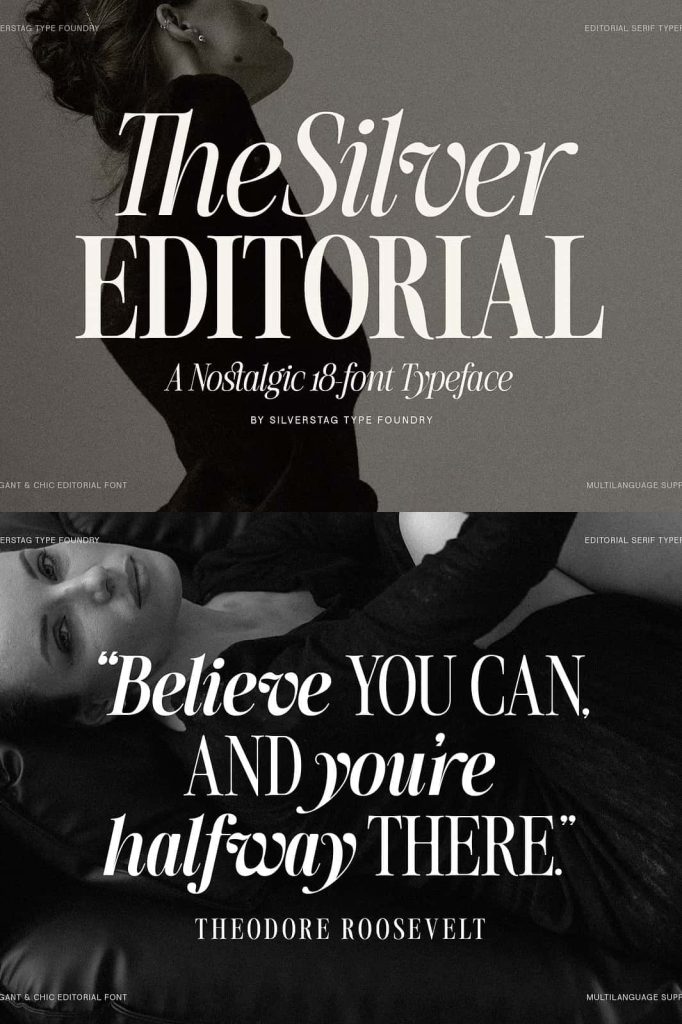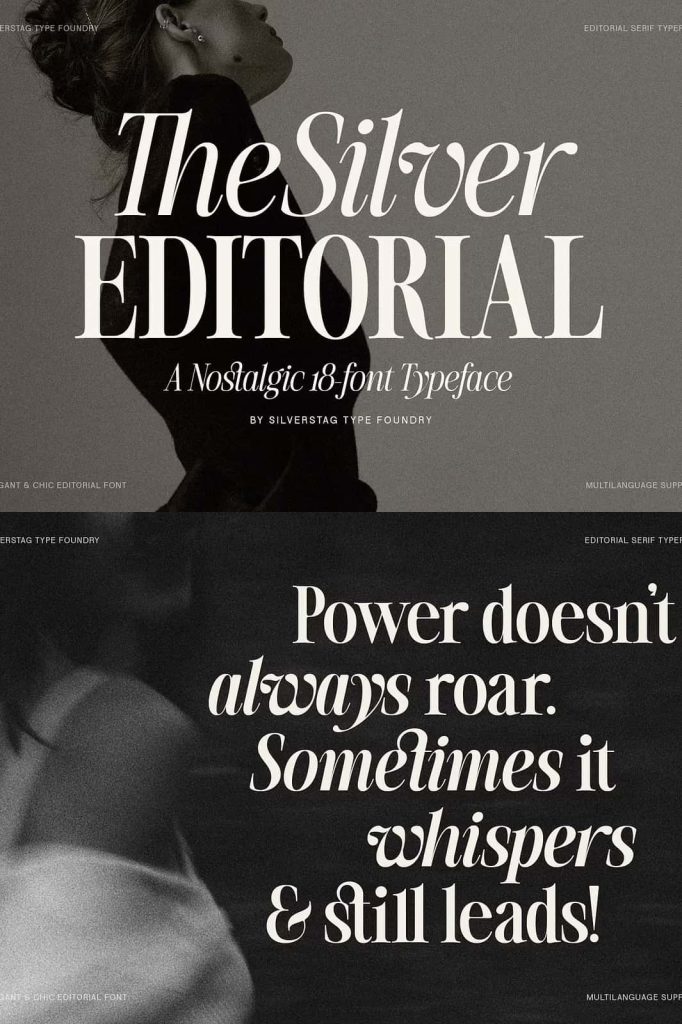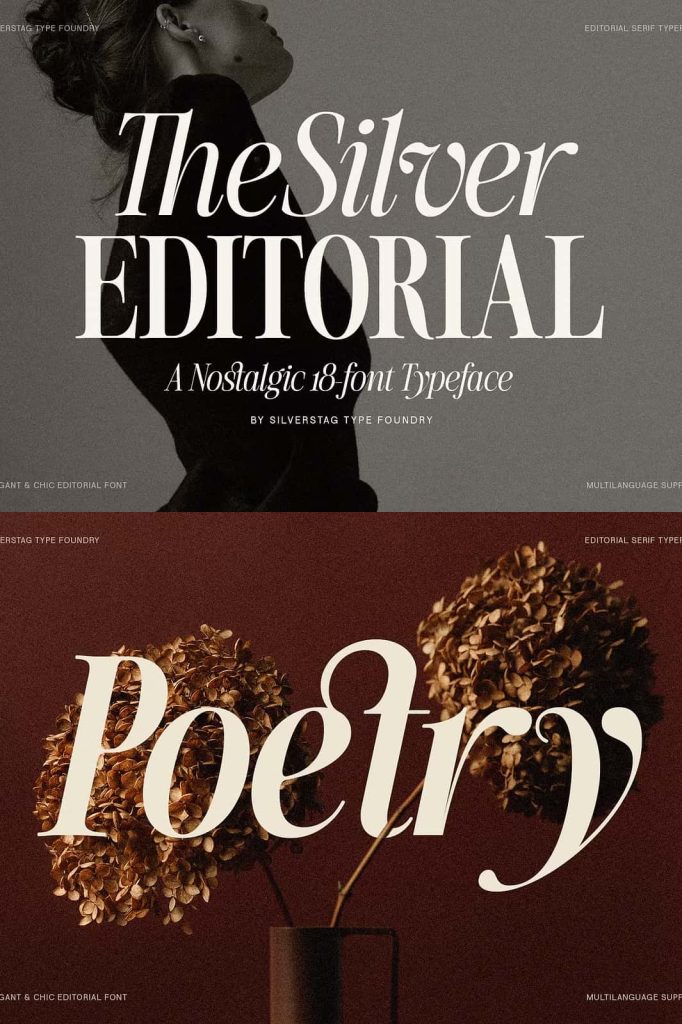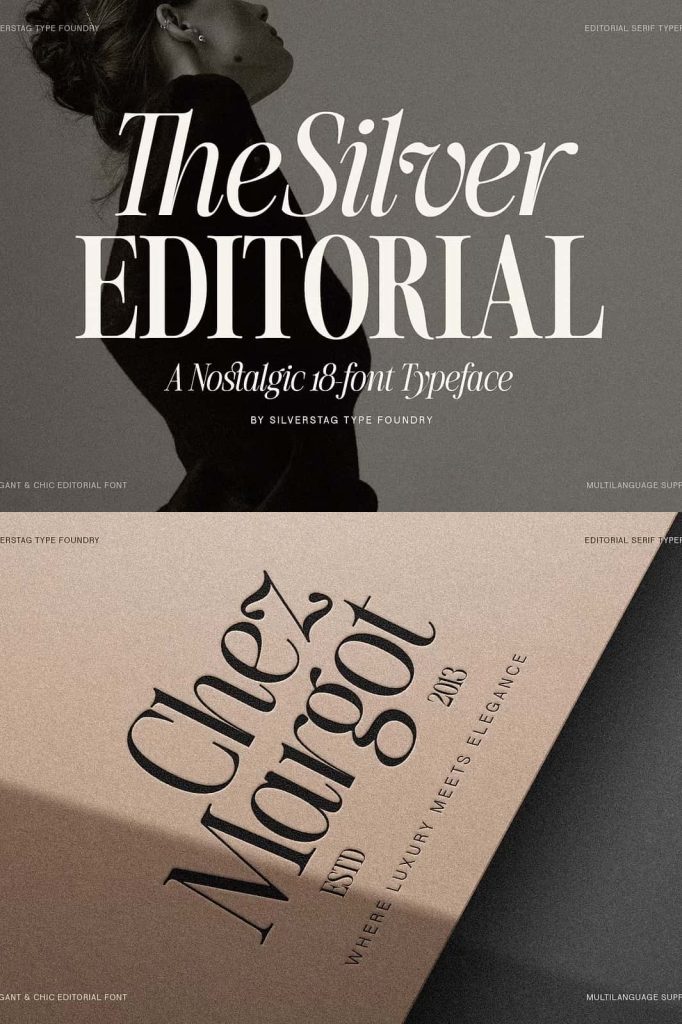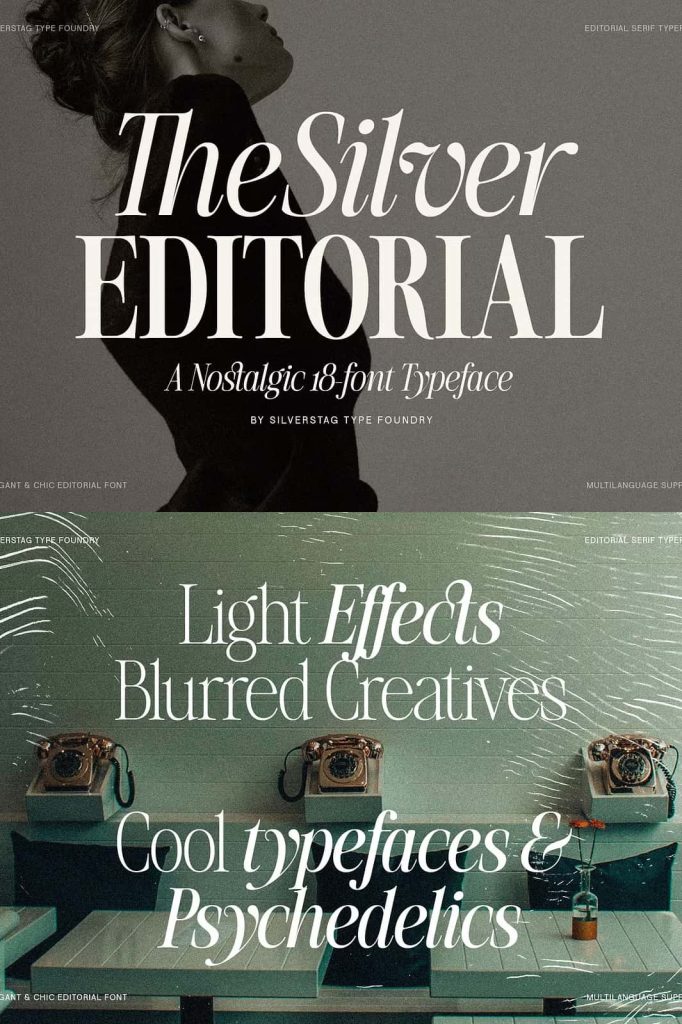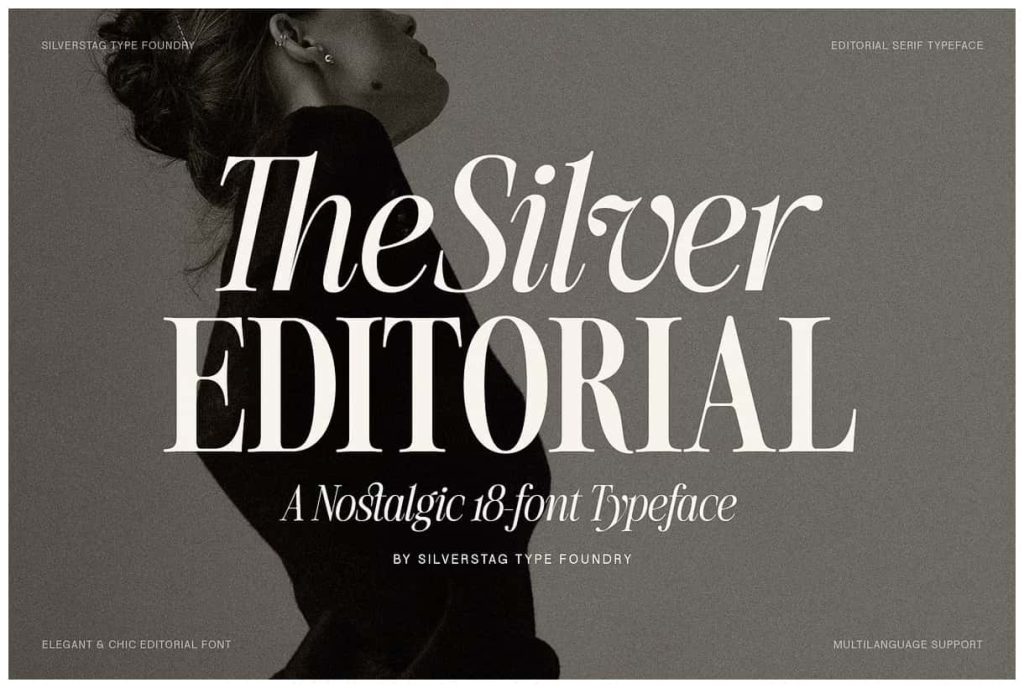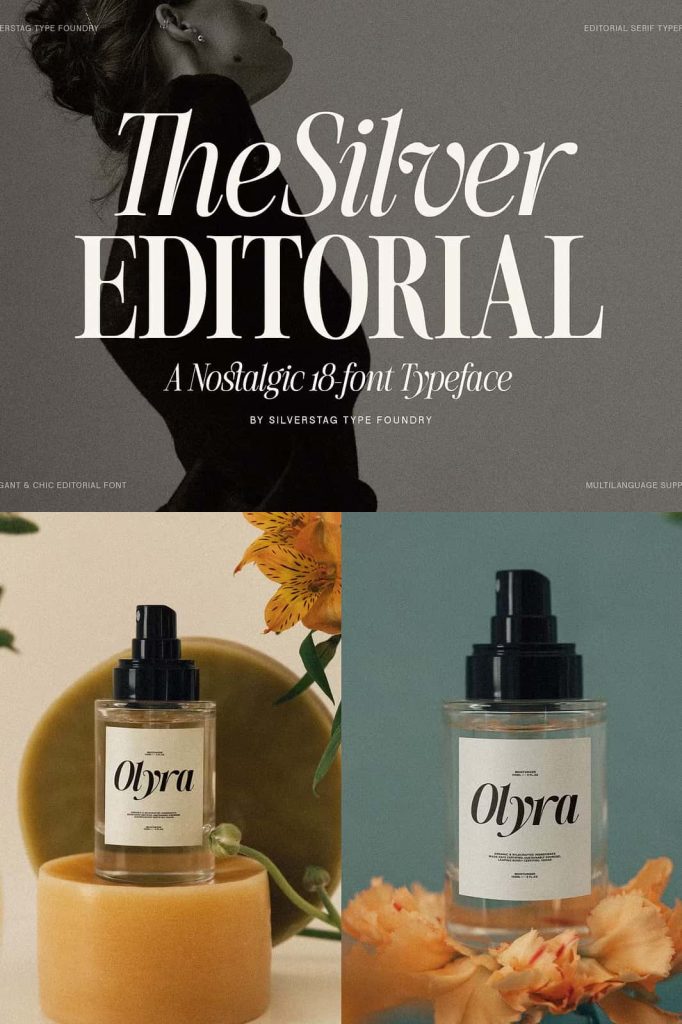
The Silver Editorial Font – A Refined and Nostalgic 18-Font Serif Typeface for Modern Designers
The Silver Editorial Font is a timeless serif typeface that blends nostalgia with precision, offering a perfect balance of beauty, versatility, and function. This expanded edition of one of the best-selling serif families introduces a comprehensive typographic system, featuring 18 fonts in total—nine unique weights, each complemented by matching italics. Every curve, stroke, and serif has been thoughtfully redrawn, giving this collection a refined elegance and superior usability across both print and digital platforms.
A Complete Typographic System for Every Creative Need
The new and improved Silver Editorial Font collection transforms classic editorial typography into a modern, high-performance design tool. With 9 weights ranging from delicate Thin to commanding Black, plus their corresponding italics, this family gives designers complete control over tone, hierarchy, and visual rhythm. Whether crafting a luxury magazine spread, an elegant brand identity, or an impactful digital interface, The Silver Editorial adapts seamlessly to every creative vision.
Each font weight has been carefully balanced to maintain consistent proportions and readability. From the lightest hairline strokes to the boldest display weight, The Silver Editorial ensures visual harmony and sophistication in every composition. The expanded italic styles add a graceful rhythm that complements editorial layouts, long-form texts, and sophisticated branding alike.
Inspired by Classic Serif Elegance
At its core, The Silver Editorial Font pays homage to the timeless serif designs of traditional print publications while introducing a modern refinement. The typeface captures the grace and character of vintage editorial lettering—sharp, sophisticated, and full of personality—yet it’s engineered for modern performance. Every letterform is crafted to deliver both visual allure and technical perfection, resulting in a type family that feels as classic as it is contemporary.
This combination of tradition and innovation gives The Silver Editorial Font its distinctive voice. It carries the warmth of heritage typography while meeting the needs of modern digital publishing, branding, and creative design. It’s not just a font—it’s a celebration of timeless editorial craftsmanship reimagined for today’s designers.
Built for Beauty, Designed for Function
The Silver Editorial Font was designed with a clear philosophy: form should serve function. The typeface’s balanced proportions, smooth curves, and consistent contrast ensure that it performs beautifully across different applications. Whether used for text, headings, logos, or advertising, it delivers clarity, impact, and visual consistency.
The versatility of this type system makes it suitable for projects of all scales—from elegant branding and luxury packaging to web design, book layouts, and editorial features. The fine-tuned kerning and optimized spacing maintain readability even in small sizes, while the stronger weights deliver striking presence in headlines and titles.
Perfect for Designers Who Demand Versatility
For creative professionals, The Silver Editorial Font provides a toolkit for precision and artistry. Its variety of weights allows for the seamless construction of typographic hierarchies, making it easy to design sophisticated layouts without needing to mix multiple font families. The italics add a touch of fluid elegance, ideal for quotes, subheadings, or expressive typography.
Each style in the family can stand on its own or blend effortlessly with others, enabling dynamic visual compositions that feel cohesive and polished. Whether you’re creating magazine editorials, branding campaigns, digital products, or social media designs, The Silver Editorial offers flexibility without compromise.
Why The Silver Editorial Font Stands Out
The Silver Editorial Font is more than an upgrade—it’s a reimagining of classic typography. Every detail has been redrawn with precision, improving the legibility, balance, and flow of the original design. The result is a typographic system that’s ready to meet professional standards in today’s fast-paced creative world.
Key Features of The Silver Editorial Font:
- Comprehensive Font Family: Includes 18 fonts – 9 weights plus matching italics for complete typographic control.
- Redrawn and Refined: Every glyph redesigned to improve clarity, proportions, and visual harmony.
- Modern Versatility: Ideal for print, digital, branding, and editorial projects.
- Exceptional Legibility: Crafted for comfortable reading in both display and paragraph settings.
- Timeless Aesthetic: Blends vintage serif elegance with contemporary refinement.
Applications: From Editorials to Brand Storytelling
The Silver Editorial Font excels in projects that require a touch of sophistication and credibility. Its professional structure and adaptable nature make it an excellent choice for editorial layouts, magazines, and newspapers, where typography carries the emotional weight of storytelling. It also thrives in brand identities that want to communicate heritage, trust, and quality.
Beyond print, The Silver Editorial performs equally well on digital platforms. Its crisp edges and fine-tuned proportions maintain readability on screens, ensuring that websites, presentations, and marketing materials convey elegance and authority.
Use The Silver Editorial Font For:
- Editorial layouts and magazine design
- Luxury branding and visual identities
- Book covers and long-form publications
- Web design and digital platforms
- Product packaging and advertising materials
Conclusion: A Timeless Serif Reborn for Modern Design
The Silver Editorial Font stands as a testament to what happens when artistry meets precision. With its expanded 18-font family, carefully redrawn details, and balance of nostalgia and modernity, it’s a typeface built for designers who demand both style and substance. It’s elegant enough for luxury brands, reliable enough for editorial publishing, and versatile enough for digital storytelling.
Whether you’re designing a magazine spread, crafting a logo, or building a digital experience, The Silver Editorial Font ensures your typography is beautiful, functional, and unforgettable. It’s more than a font—it’s a legacy of design excellence, refined for the creative world of today.